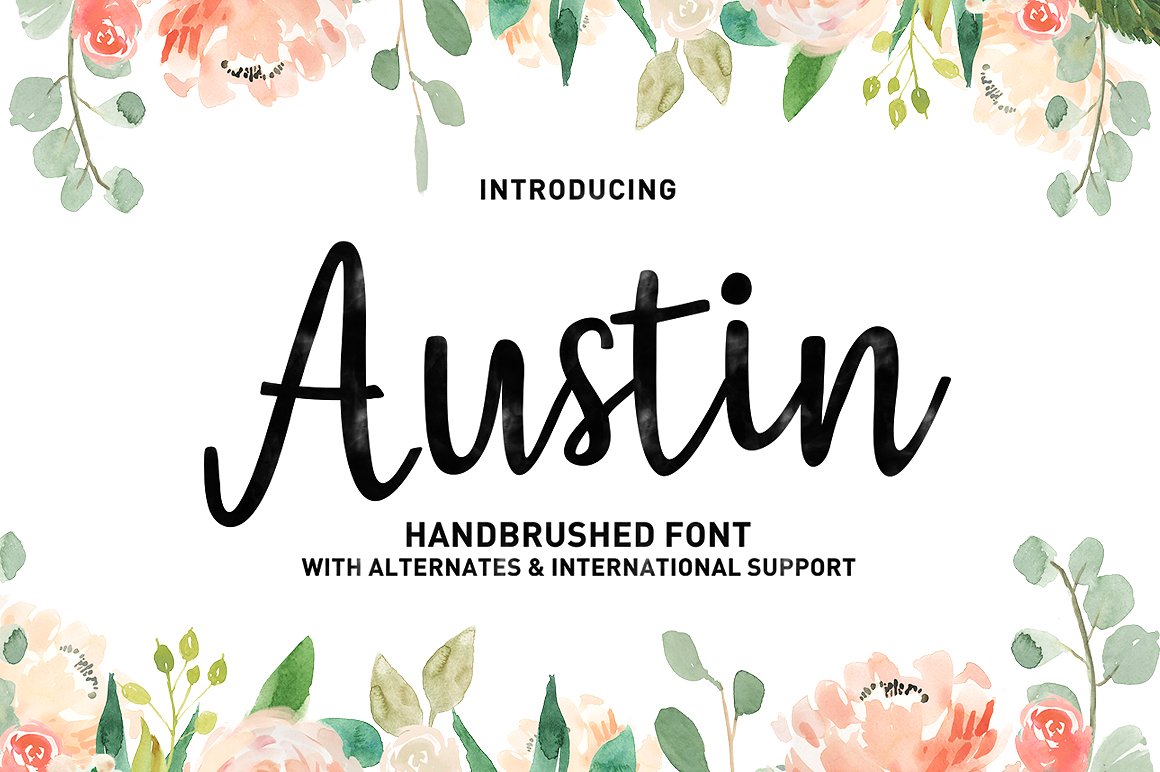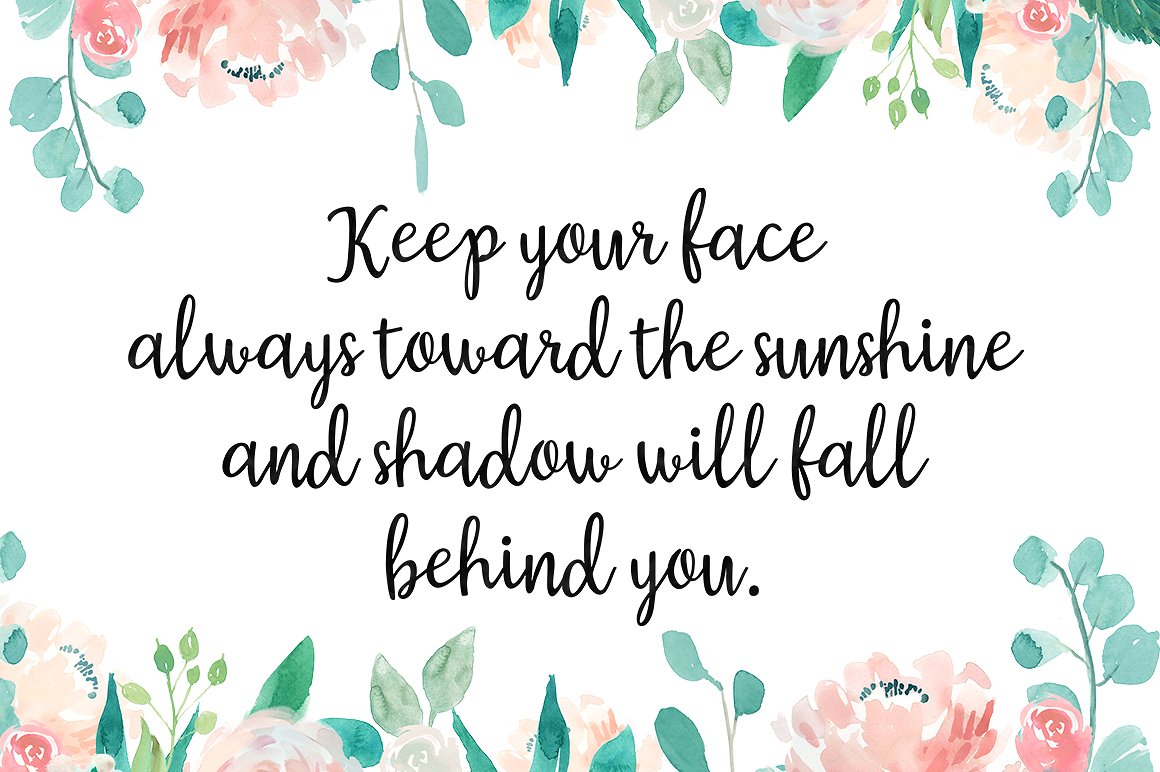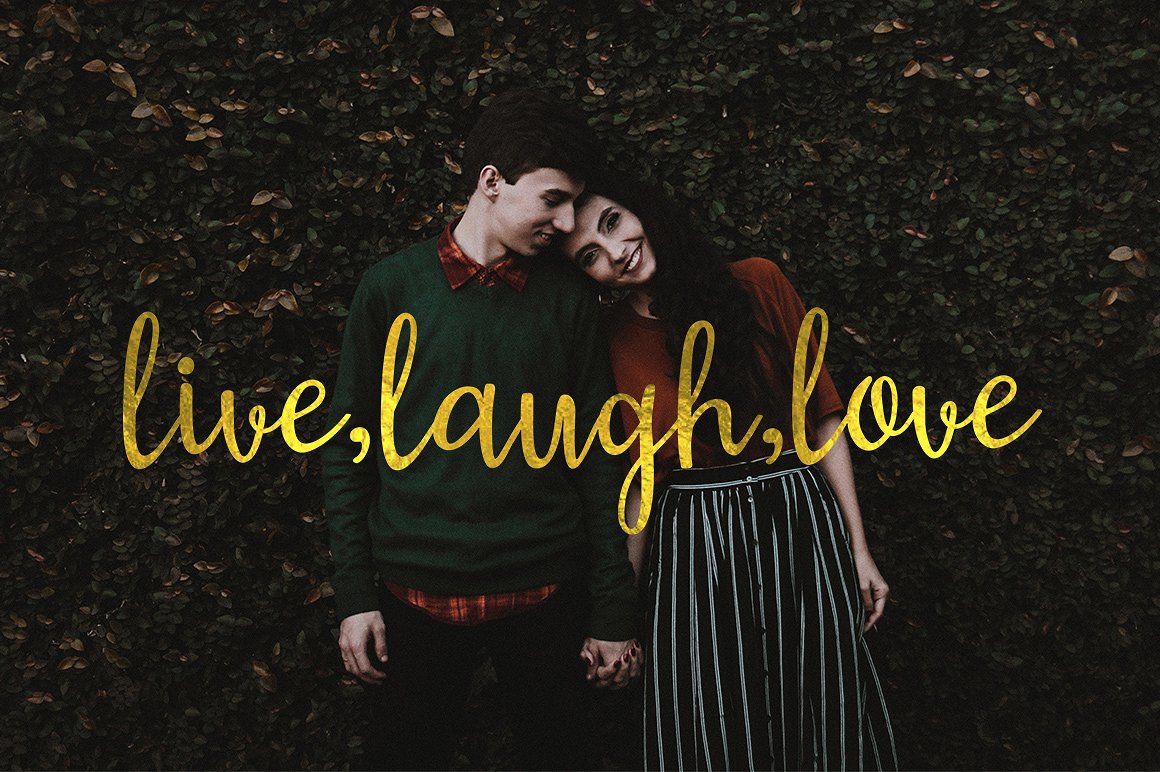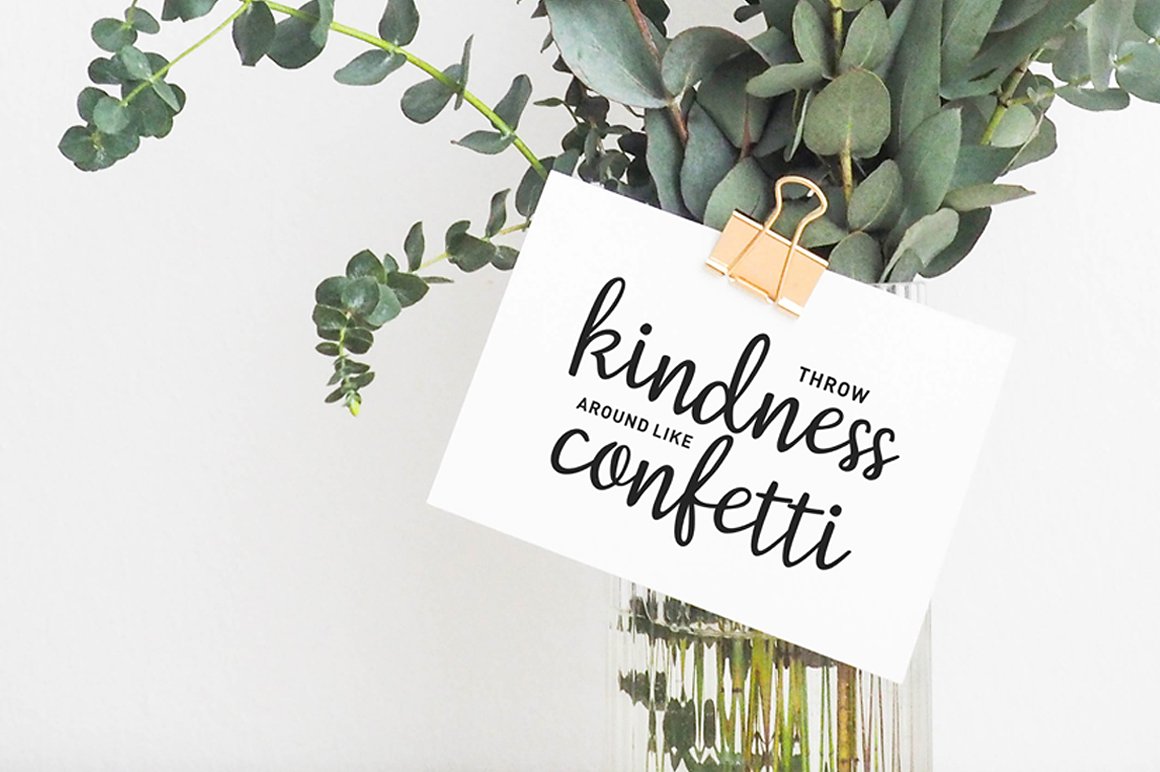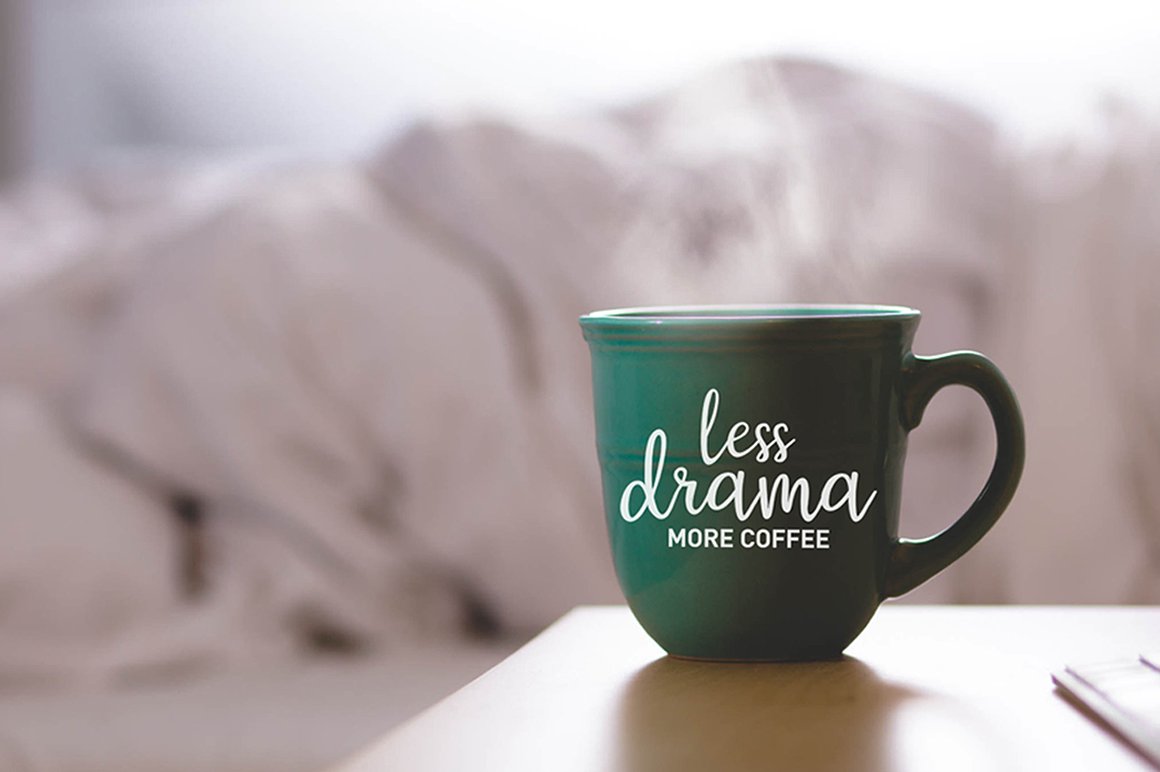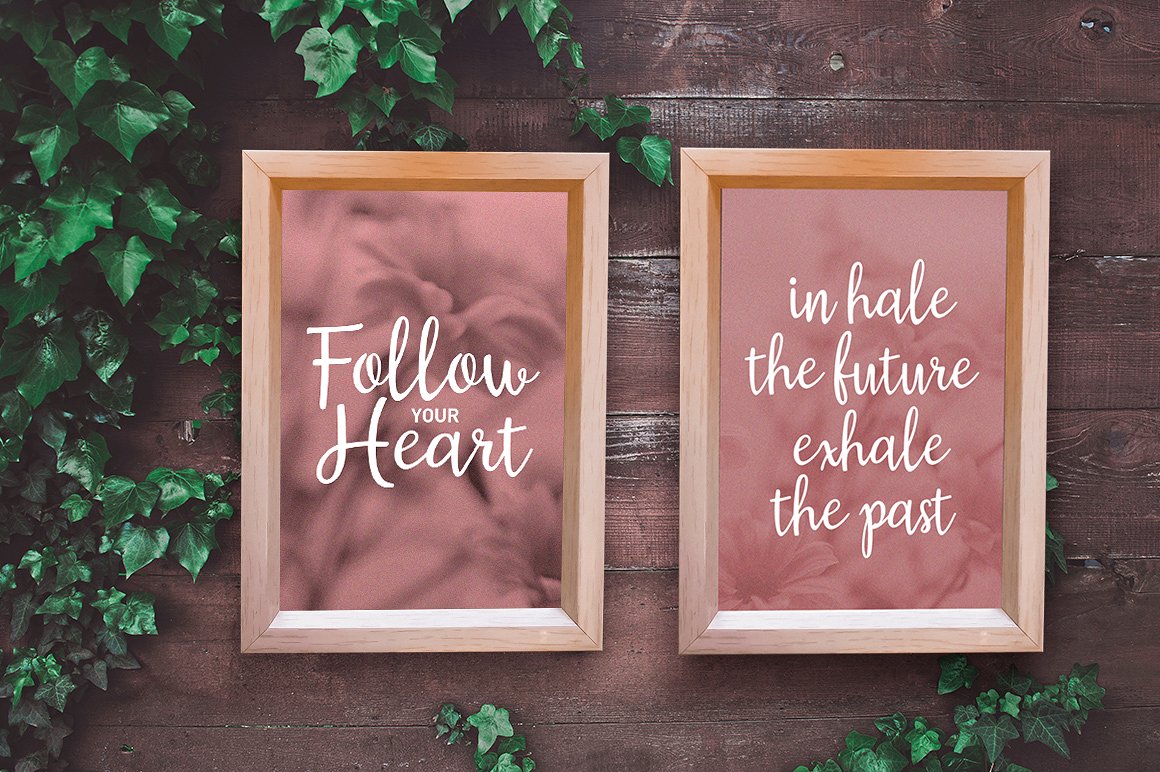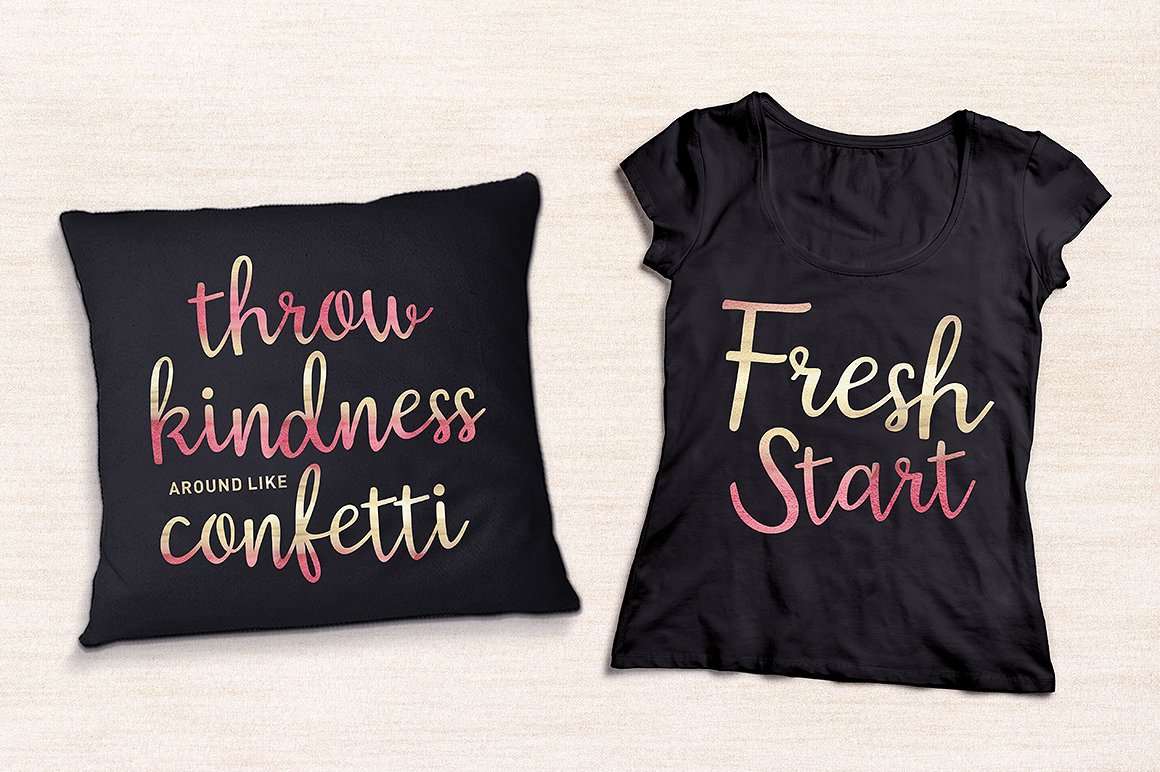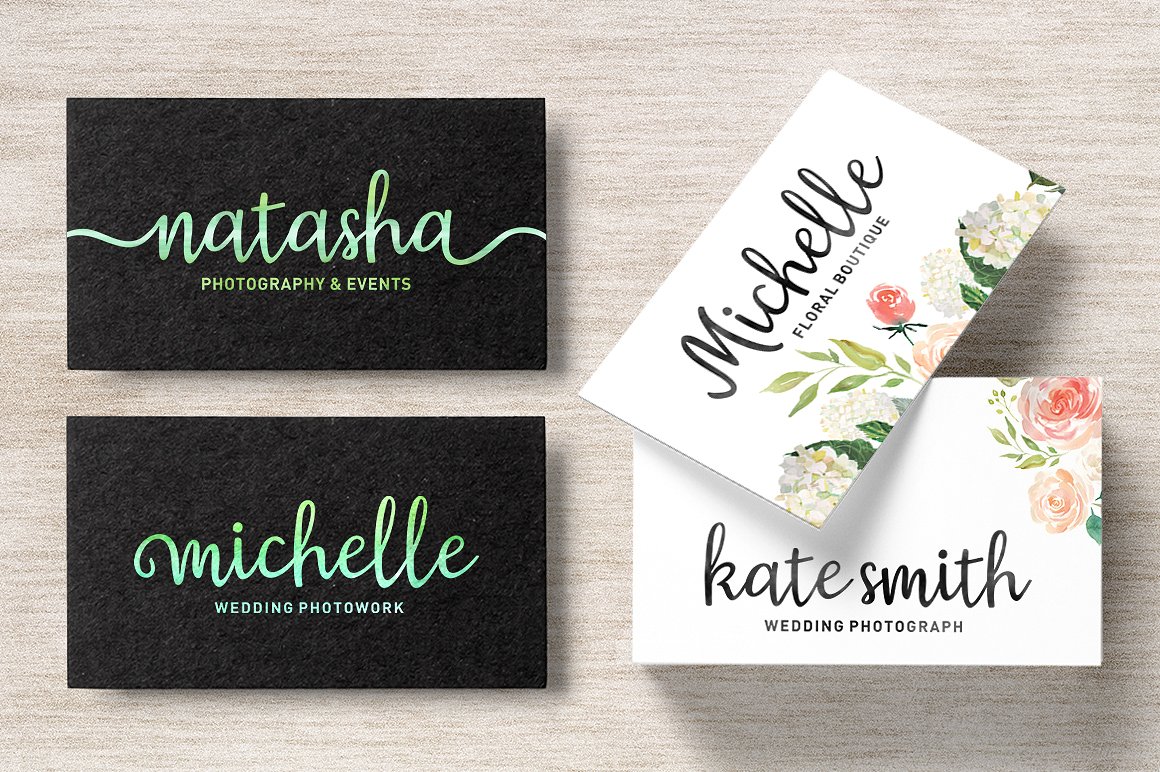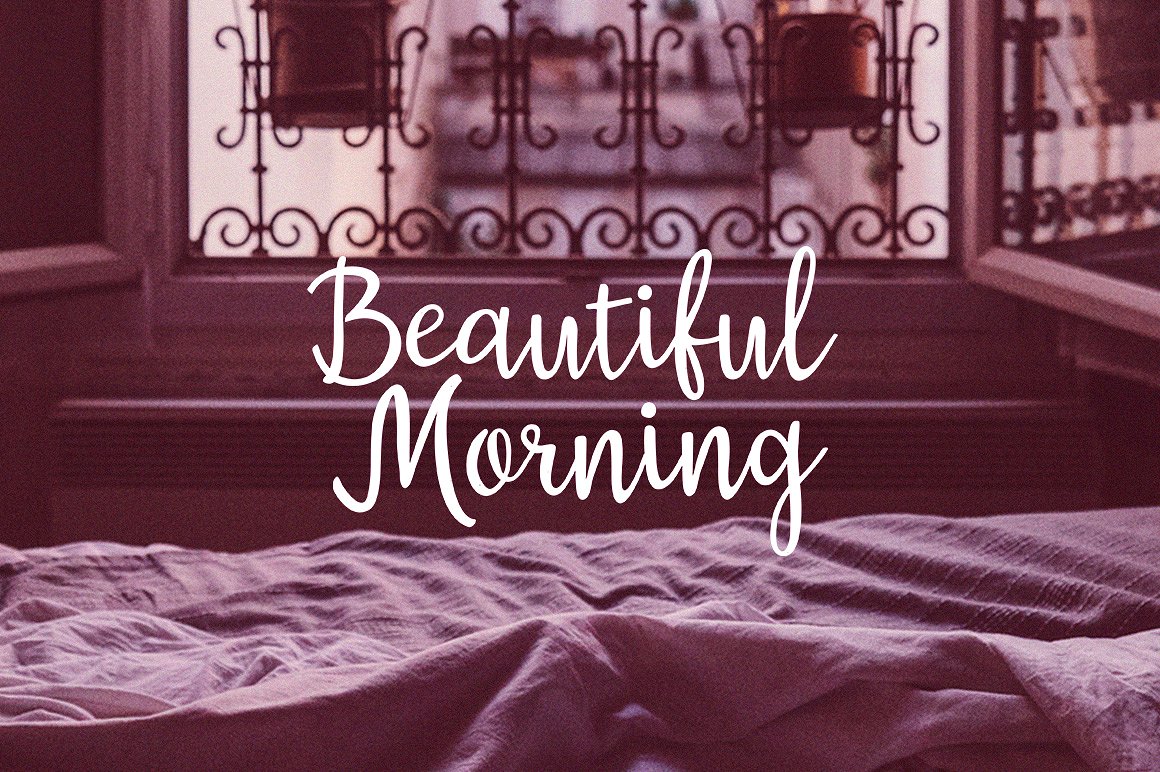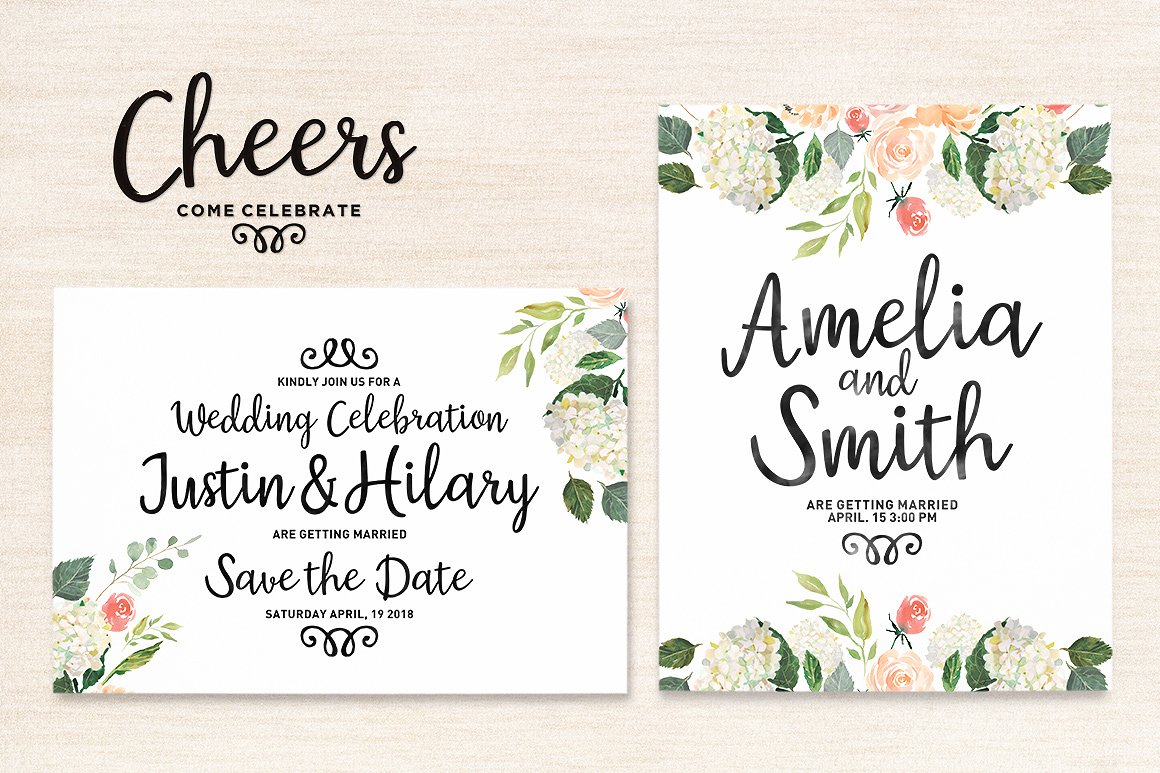
Austin Font
About Austin Font
Austin Script is a modern script font with an irregular baseline. Trendy and with a feminine style, this handmade script is a wonderful display option.